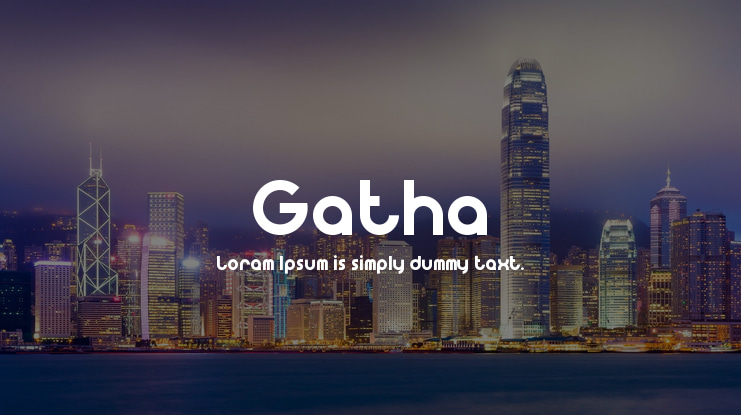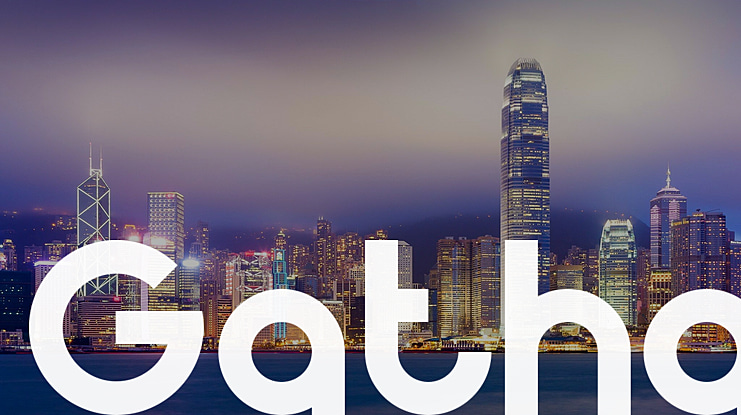
Gatha Font Family
Gatha is a playful font duo that includes a signature script and a elegant sans – already matched up and ready to be used together for your next design!NOTE: This demo font is for PERSONAL USE ONLY! But any donation are very appreciated.Paypal account for donation : https://paypal.me/khaiunsLink to purchase full version and commercial license:https://www.creativefabrica.com/product/gatha-font-duo/And follow my instagram for update: https://www.instagram.com/khaiuns/Thank you